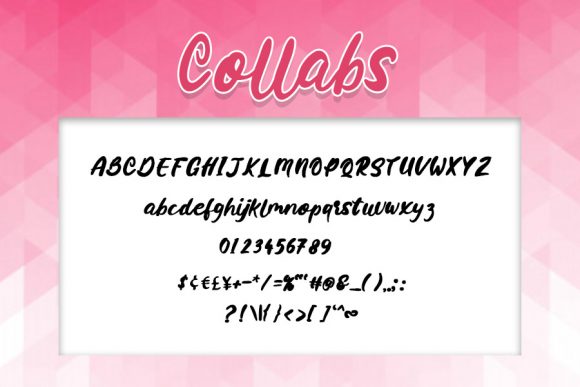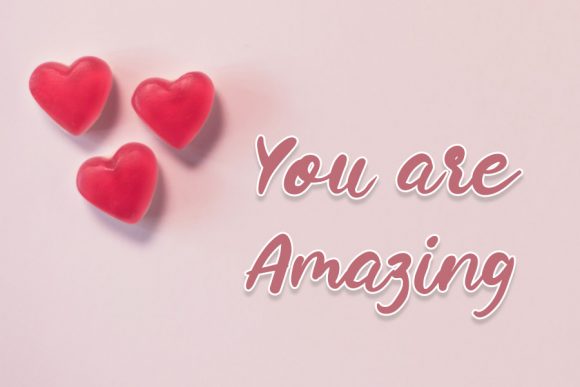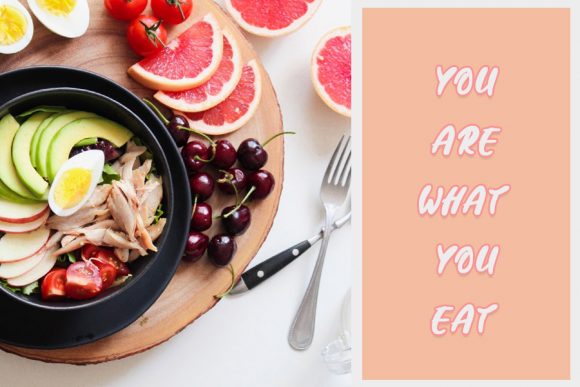
Collabs Font
About Collabs Font
Collabs feels incredibly elegant and flowing. It looks stunning on wedding invitations, thank you cards, quotes, greeting cards, logos, business cards and every other design which needs a customized touch.